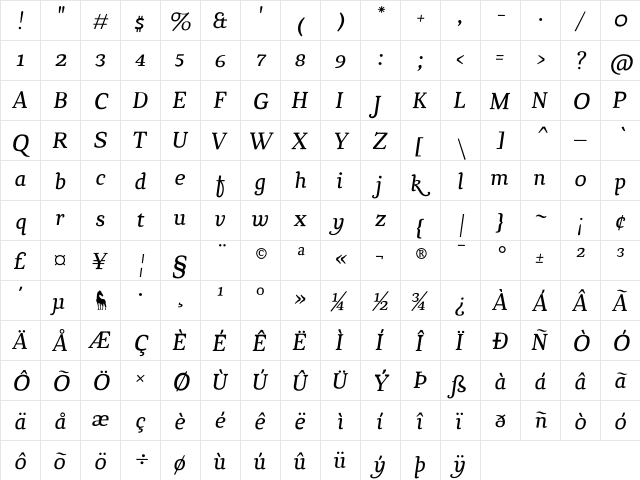
Chucaratext Italic
| Foundry | Juan Pablo De Gregorio Concha |
| Designer | Juan Pablo De Gregorio Concha |
Design Context for Chucaratext Typeface
Chucaratext takes a measured approach to typography — its balanced proportions and neutral character make it a reliable workhorse for both digital and print work. The slanted form adds forward momentum and visual energy.
Pro Tip: Try Chucaratext for annotation and caption copy alongside an upright companion — the contrast in angle creates a dynamic but ordered typographic system.